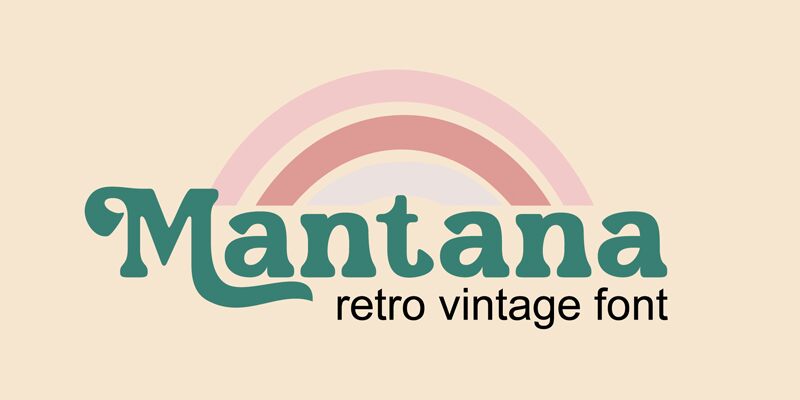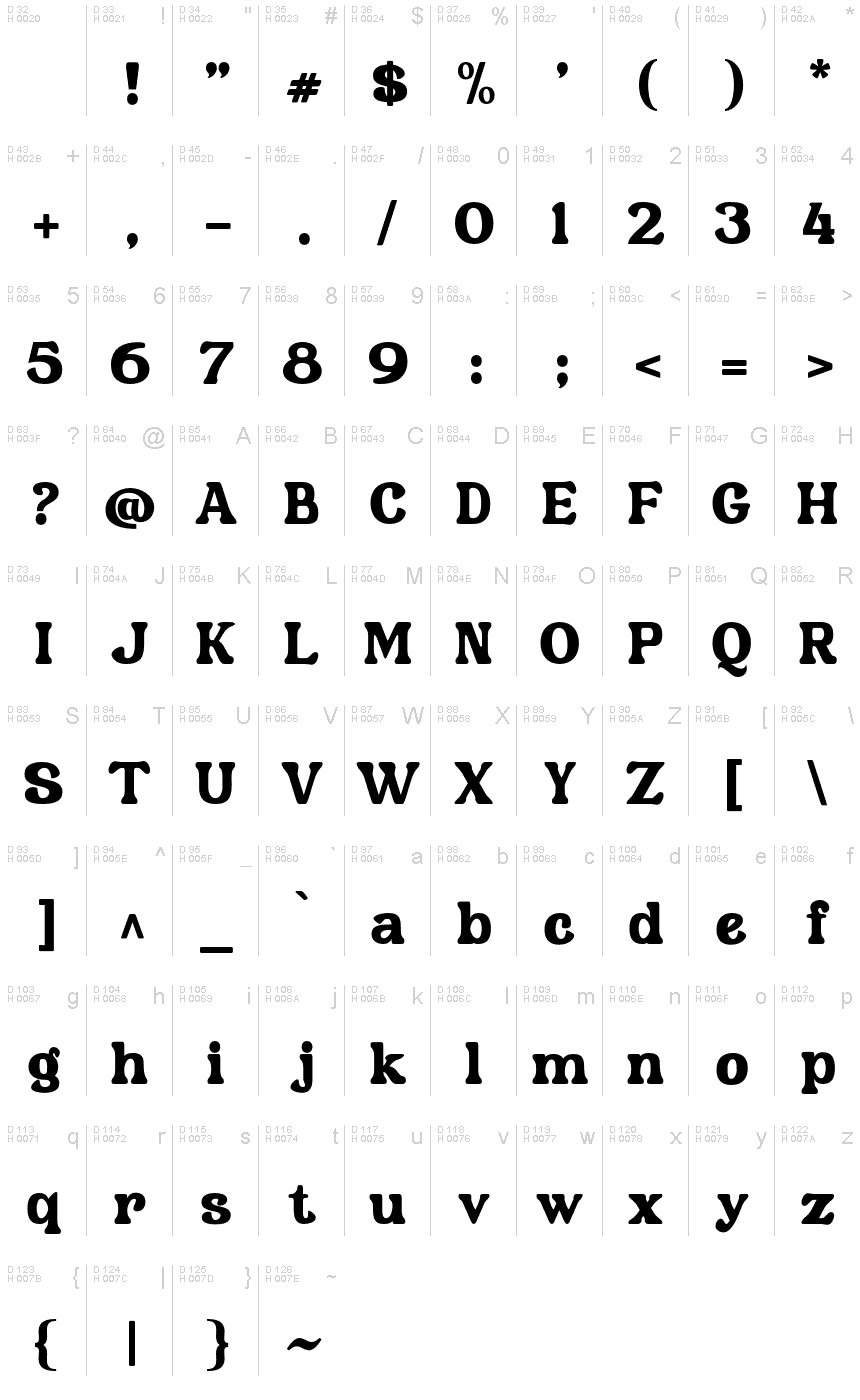
Mantana, a creation of Anomali Creative, is a display font that embodies the essence of retro design. With its semi-light weight and old style serif, this font exudes a funky and bold charm that is perfect for various projects.
Whether you need eye-catching displayed text, captivating headlines, or an unforgettable logotype, Mantana delivers with its hight-contrast and round shape. To enhance your creativity even further, this font includes stylish alternates and ligatures. For the best experience, we recommend using Adobe apps or Corel Draw as they support OpenType features and Glyphs panels, allowing you to explore the full range of glyph variations.
Unleash your retro-inspired ideas with Mantana!